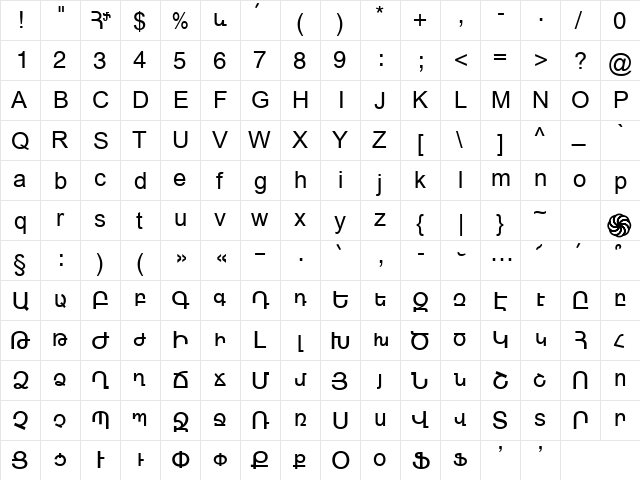
ArTarumianNorMatenagir Regular
Design Context for ArTarumianNorMatenagir Typeface
ArTarumianNorMatenagir takes a measured approach to typography — its balanced proportions and neutral character make it a reliable workhorse for both digital and print work.